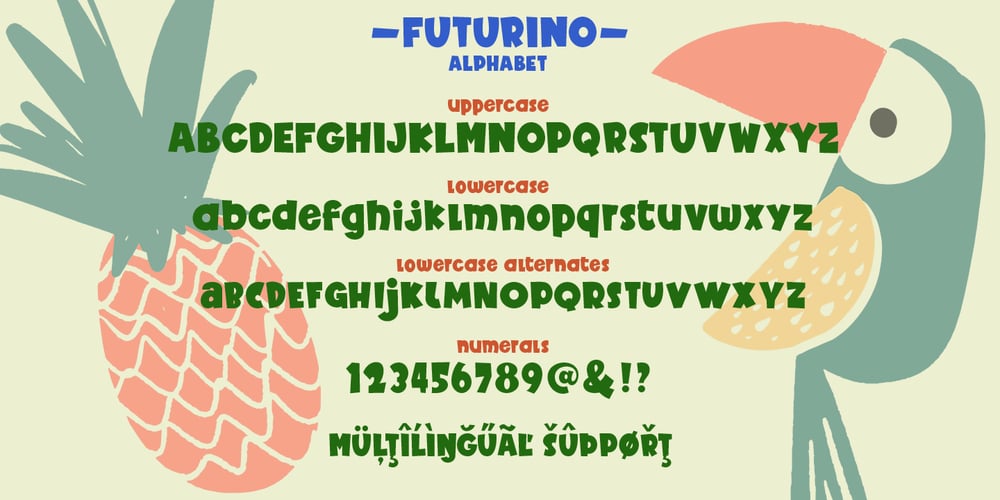
Futurino Font Family was designed by Pavel Larin and published by Larin Type Co. Futurino contains 4 styles and family package options. Futurino – a new fun display font collection. This is a fun font that is perfect for creating your project, it can be used to create a beautiful inscription for t-shirts, children’s books, branding for small business, book covers, stationery, marketing, blog, magazines and more.